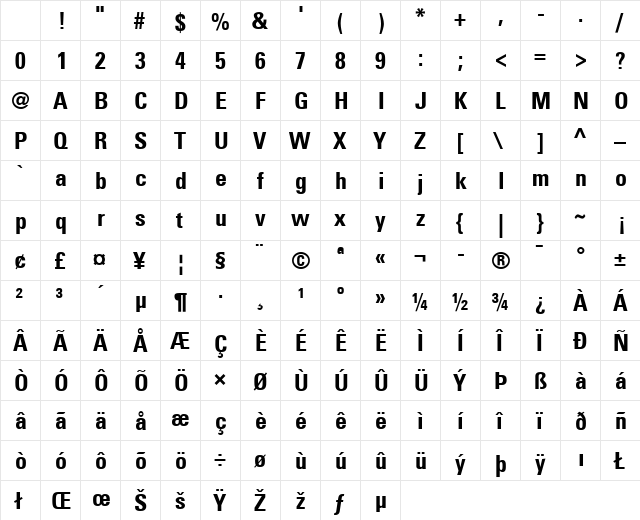
Univers LT 47 CondensedLt Bold
Design Context for Univers LT 47 CondensedLt
Univers LT 47 CondensedLt is a composed and adaptable typeface that performs quietly and consistently across a wide range of design contexts. Its bold stroke weight gives it real presence on the page. Its narrow stance lets it pack a punch even in space-constrained designs.